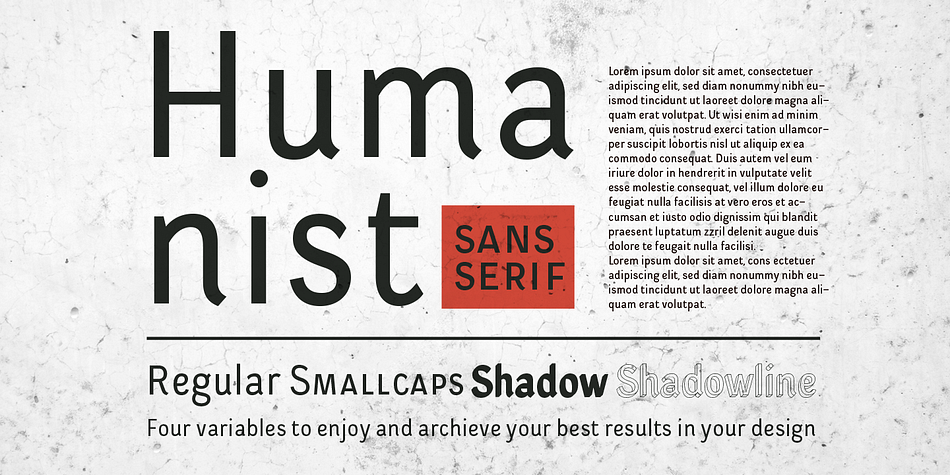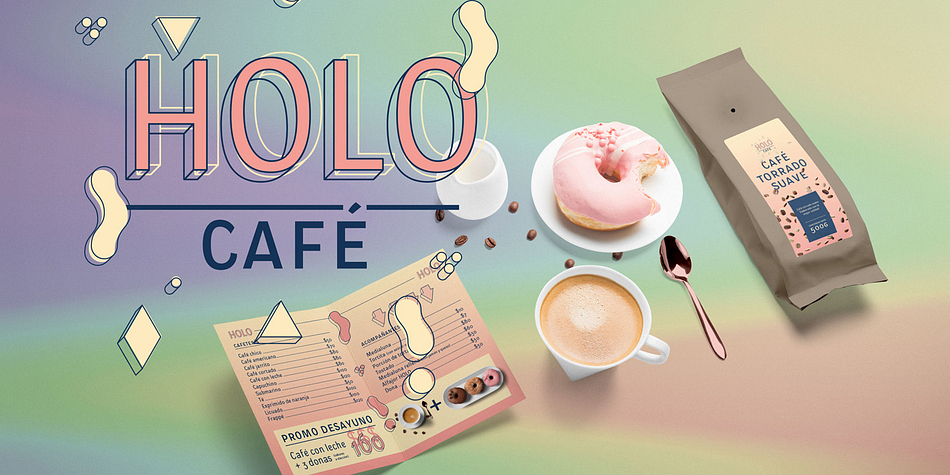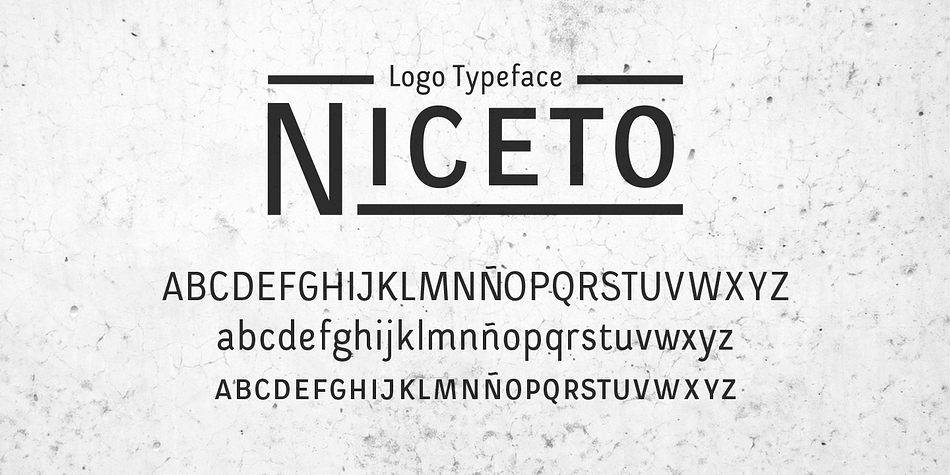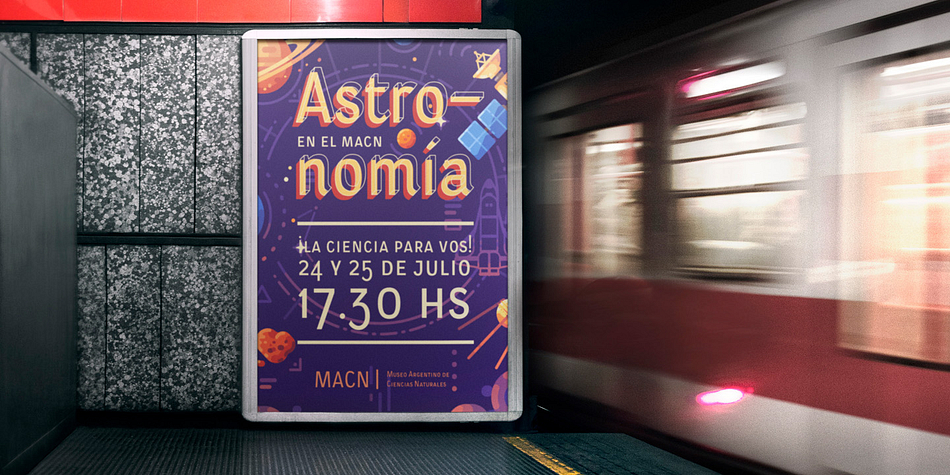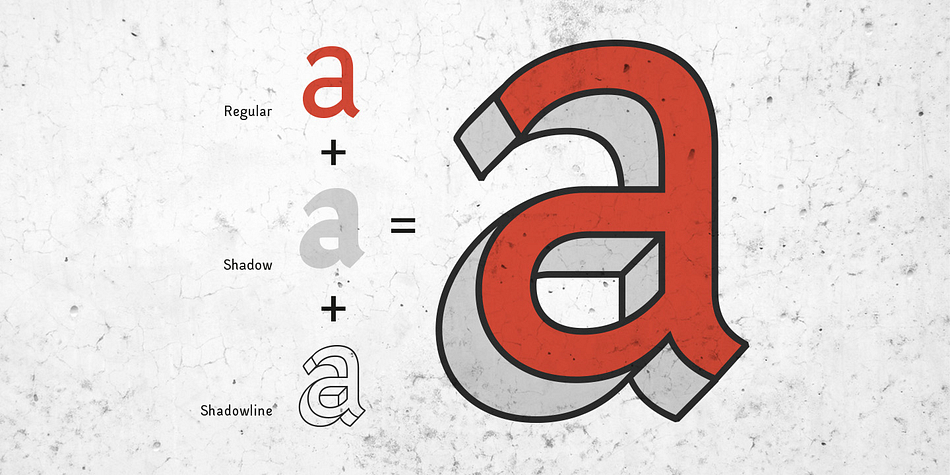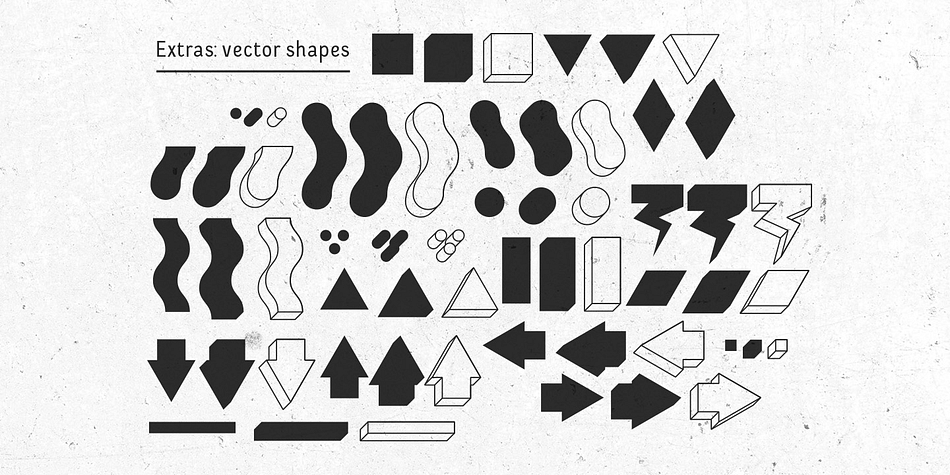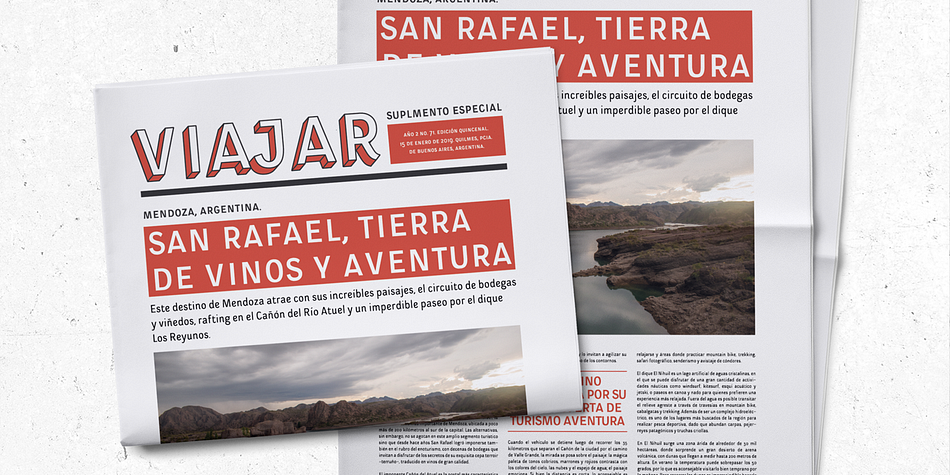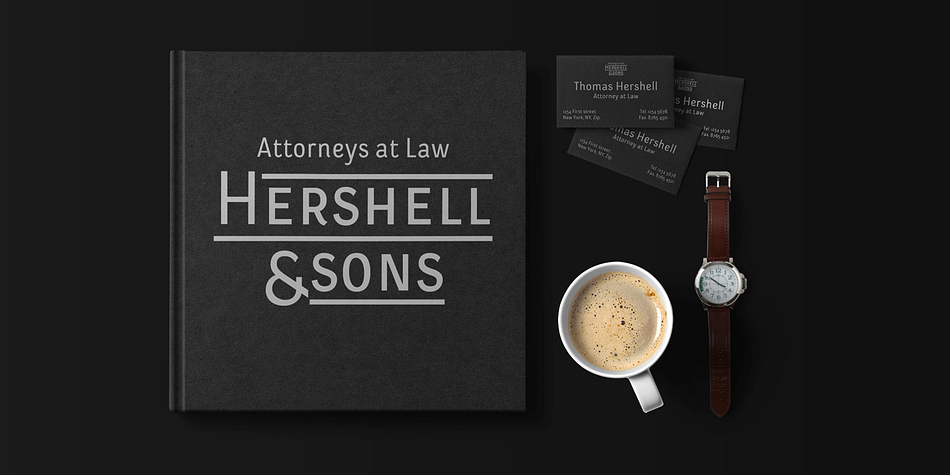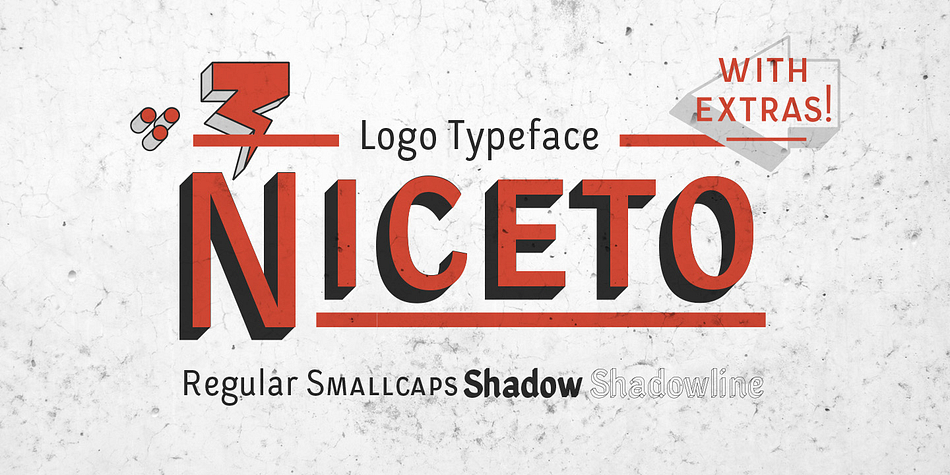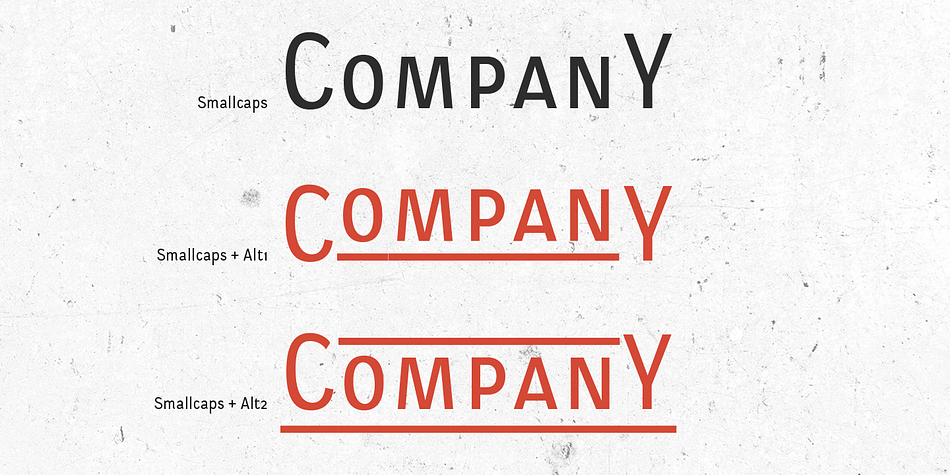
Designed by Mariel Gornati, Niceto Typeface is a display sans and sans serif font family. This typeface has four styles and was published by MaGo Fonts.
Niceto Typeface is a sans serif display font family designed for logotype design. Using its different variations (included in 4 fonts) you may archieve unique headlines and phrases to emphasise your brand.
It’s cool and clean yet warm, and it may communicate many personalities, according to its different uses.
This font family includes:
Niceto Regular (286 glyphs)
Niceto Smallcaps (381 glyphs, including alternates!)
Niceto Shadow (286 glyphs)
Niceto Shadowline (286 glyphs)
With all its possibilities, Niceto may be as flexible as your needs require, giving you all the freedom to design!